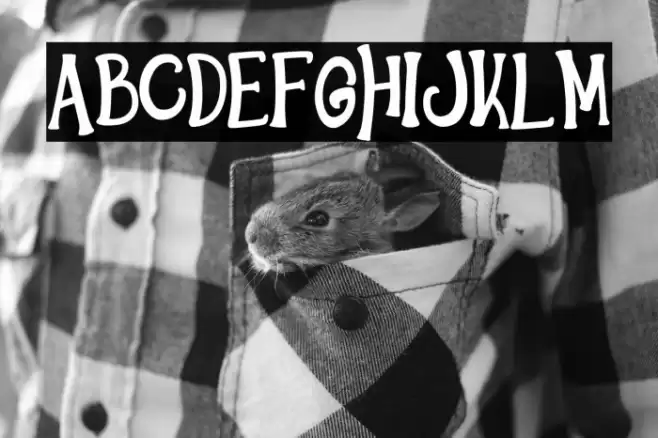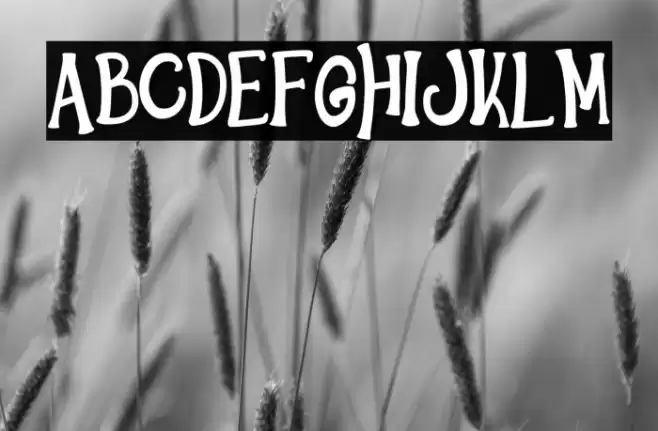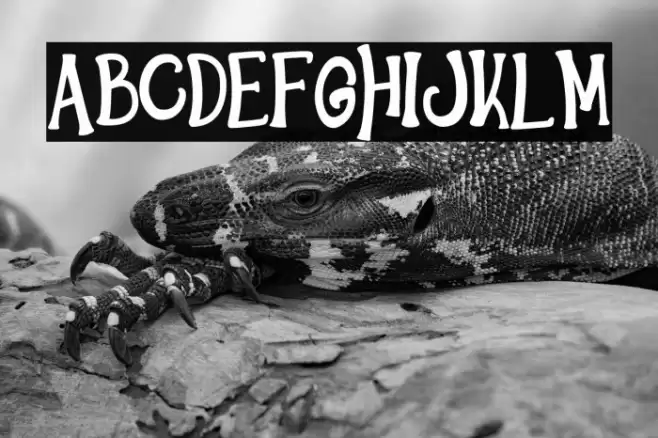
HelloWindsDEMO-Regular Font
HelloWindsDEMO-Regular Description
This font features a playful and whimsical design, characterized by its irregular, hand-drawn style. The letters have a dynamic, slightly tilted appearance, with varying stroke thickness that adds to its lively and informal feel. The uppercase and lowercase letters maintain a consistent style, with quirky curves and unique character shapes that give it a distinctive personality. The numbers and special characters follow the same playful aesthetic, making it suitable for creative and fun projects.
A playful, hand-drawn font with a whimsical and dynamic style from Kids fonts.
- Font: HelloWindsDEMO-Regular
- Proposed Projects: Ideal for children's books, playful branding, greeting cards, and creative posters.
- Overall Style: Whimsical, Playful, Hand-drawn
- Use Case: Headlines, Logos, Creative projects
HelloWindsDEMO-Regular UPPERCASE
HelloWindsDEMO-Regular LOWERCASE
HelloWindsDEMO-Regular OTHER CHARS